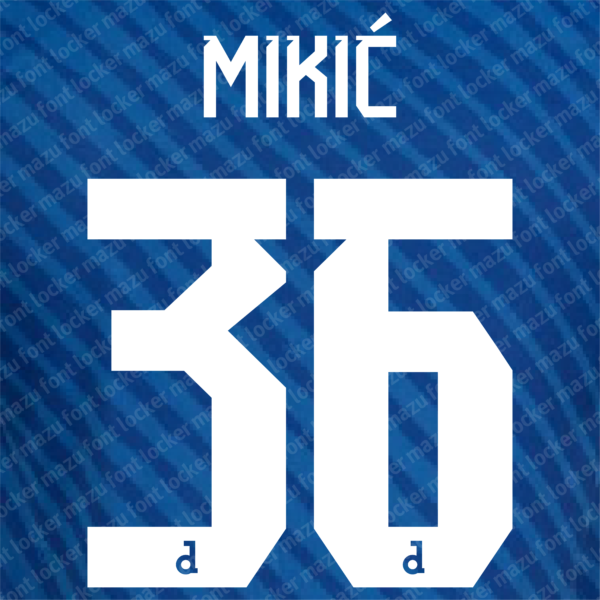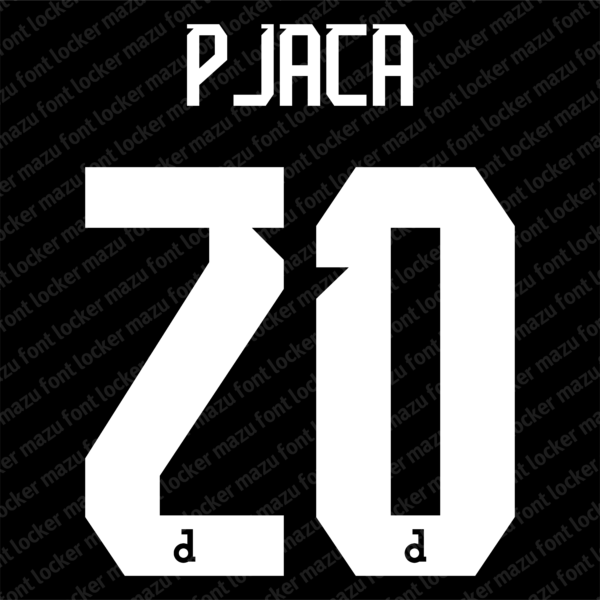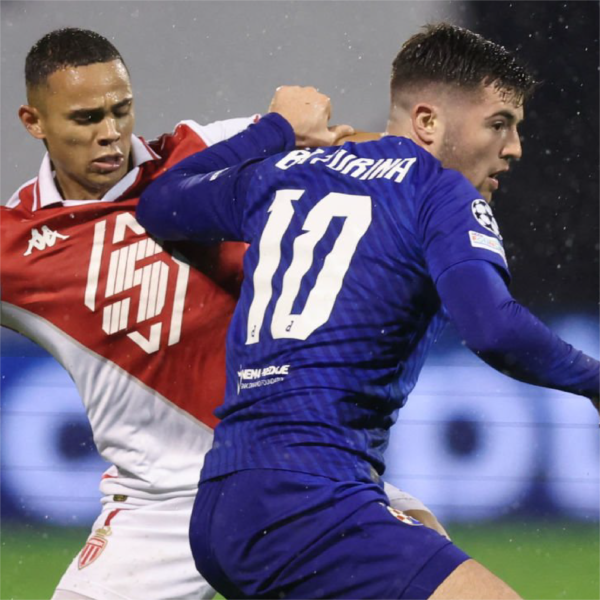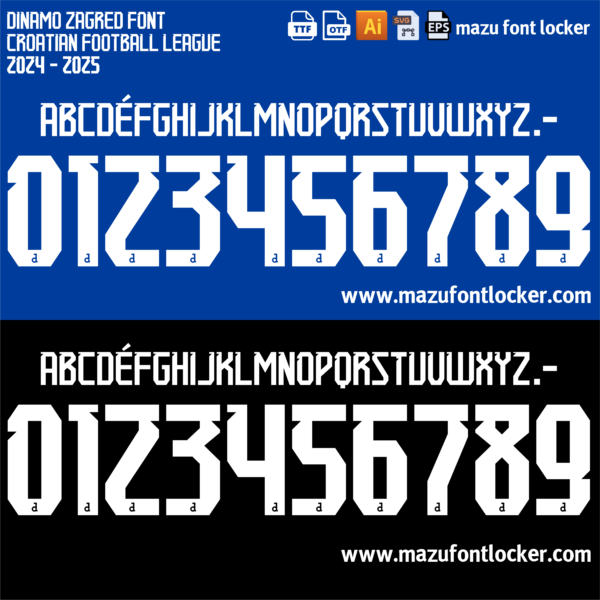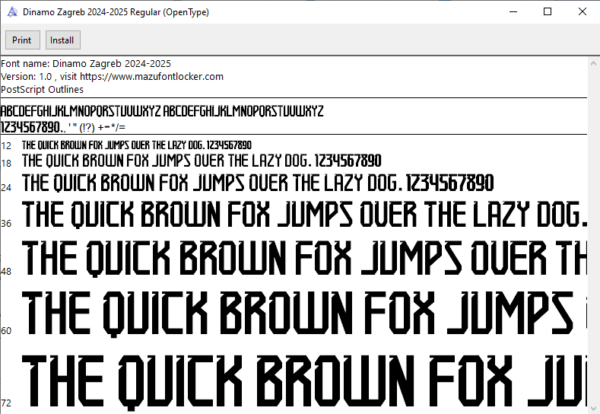
Dinamo Zagreb 2024-2025 Font Vector – Fearless Croatian Football Masterpiece
Download Dinamo Zagreb 2024-2025 Font and bring the authentic Croatian football atmosphere into your creative projects with this premium jersey lettering collection. Designed with incredible precision and inspired by the official club kit style, this font pack is perfect for football designers, sports editors, content creators, and passionate supporters who want a professional match-day appearance. The Dinamo Zagreb 2024-2025 Font captures the bold and modern identity of Dinamo Zagreb, delivering clean lines, sharp edges, and powerful character details suitable for jersey mockups, fan artwork, posters, gaming edits, and custom printing projects.
Dinamo Zagreb 2024-2025 Font Vector
The Dinamo Zagreb 2024-2025 Font is a premium, high-precision football jersey font vector expertly crafted to embody the fearless identity, rich heritage, and electric passion of Dinamo Zagreb’s dominant 2024-2025 campaign.
Inspired by the Modri’s fierce fighting spirit, their relentless pursuit of glory, and their iconic, thunderous performances throughout the 2024-2025 season, this font delivers a bold, aggressive, and commanding visual style that captures the true essence of Croatian football excellence. Every letter and number has been meticulously recreated with razor-sharp precision to reflect the pride, determination, and legendary blue and white identity that defines Dinamo Zagreb as a powerhouse on the pitch.
Celebrate the legacy of Dinamo Zagreb. Unleash the spirit of the Modri. Bring the unstoppable passion and dominance of the 2024-2025 season to life with the Dinamo Zagreb 2024-2025 Font.
• Authentic 2024-2025 Dinamo Zagreb jersey lettering style
The authentic lettering style helps recreate the classic look of the Dinamo Zagreb 2024-2025 kit with professional accuracy.
Unlike generic jersey fonts, this set is designed with a strong focus on authenticity and accuracy. Every detail is based on the original match lettering style used during the 2024-2025, helping designers and collectors create realistic football shirt designs.
This Dinamo Zagreb 2024-2025 font vector set is designed for authentic football jersey customization and works perfectly for retro football projects, collector designs, and professional sportswear artwork.